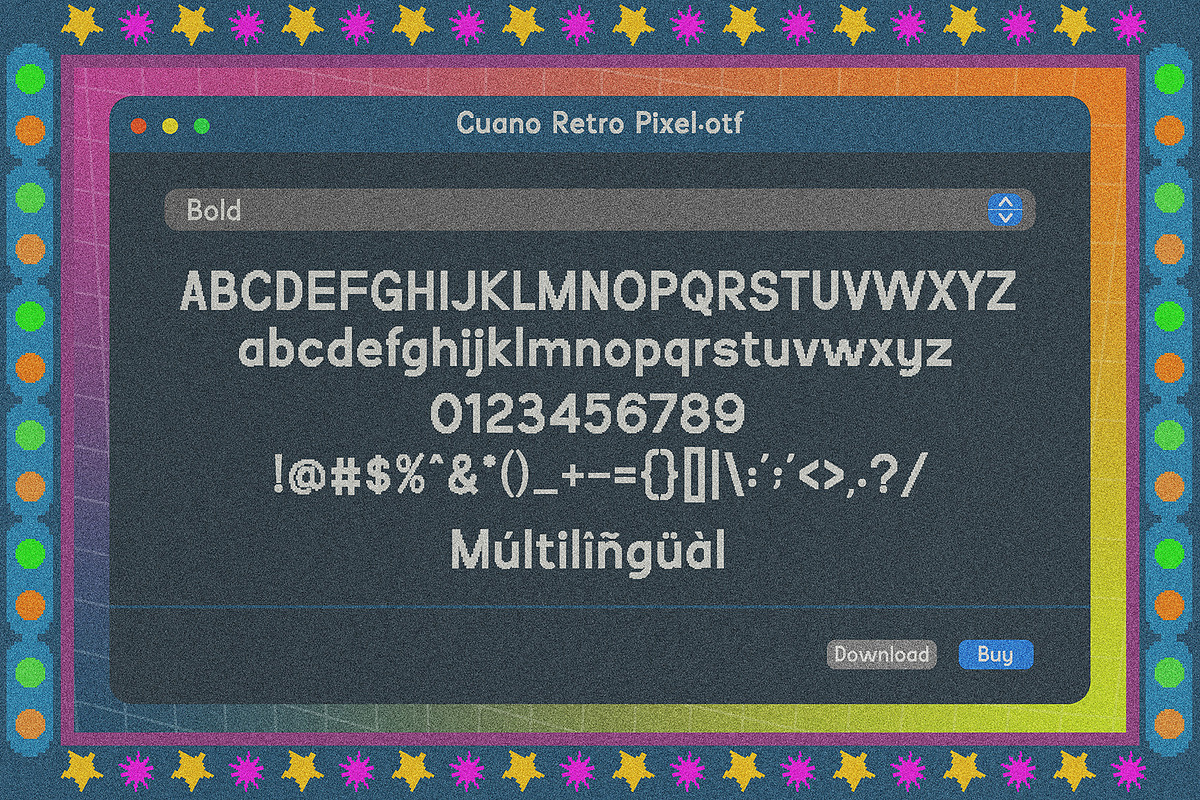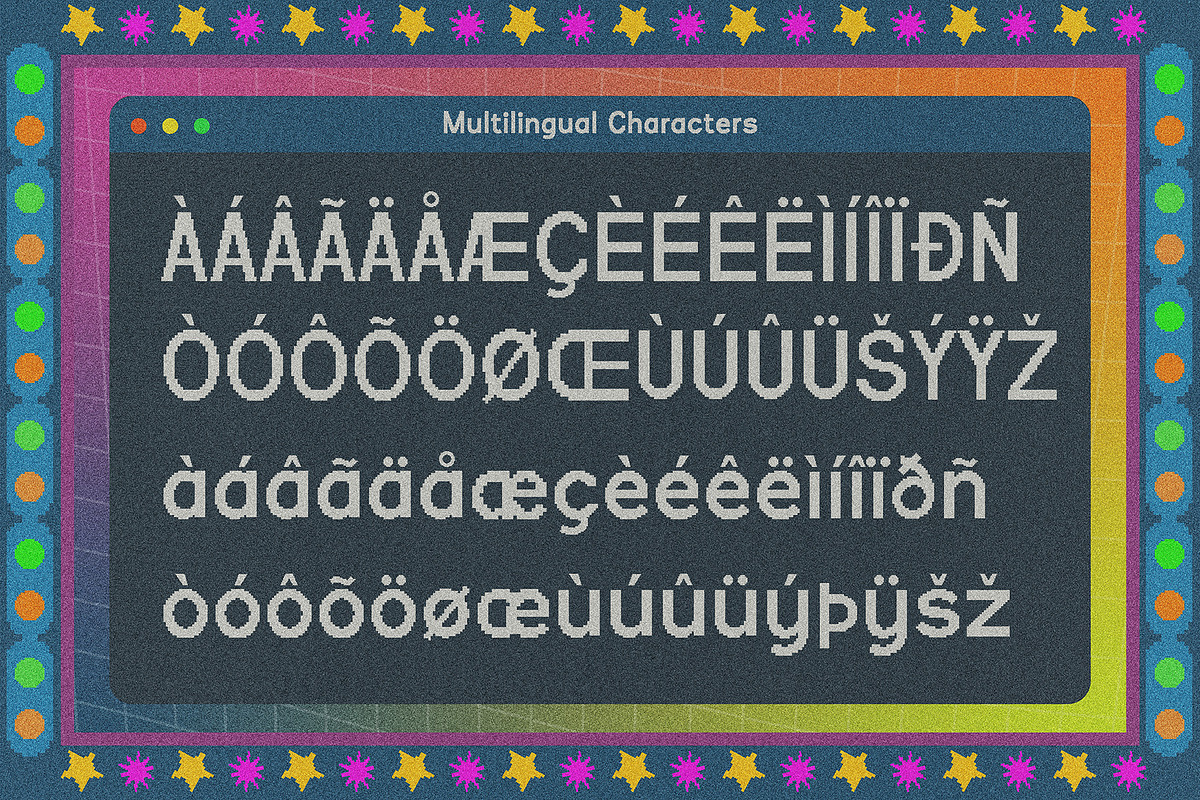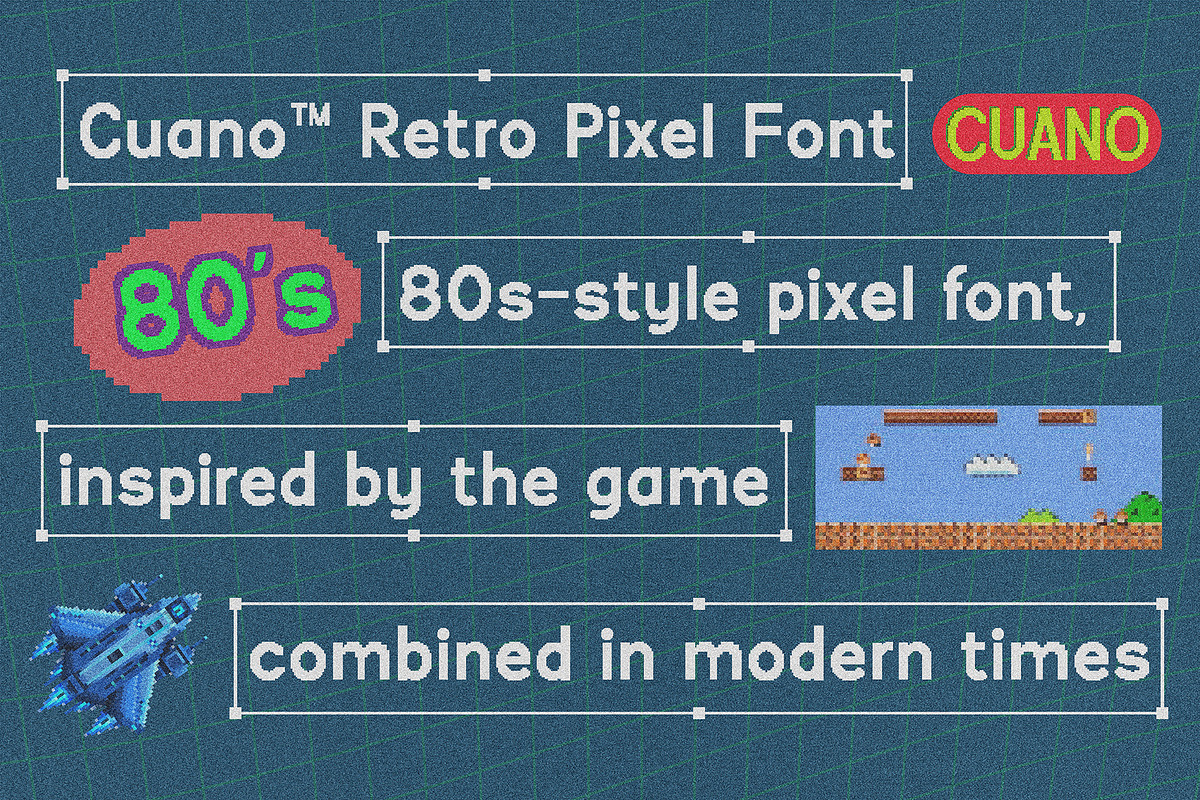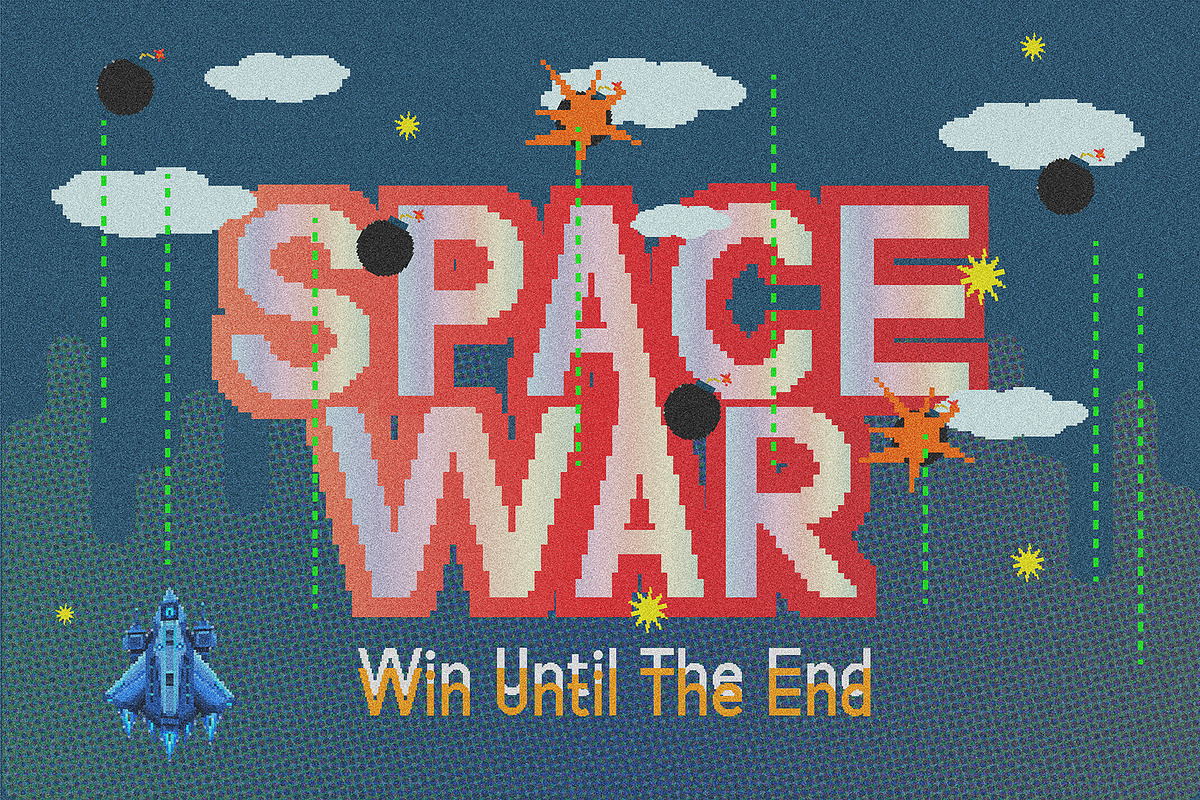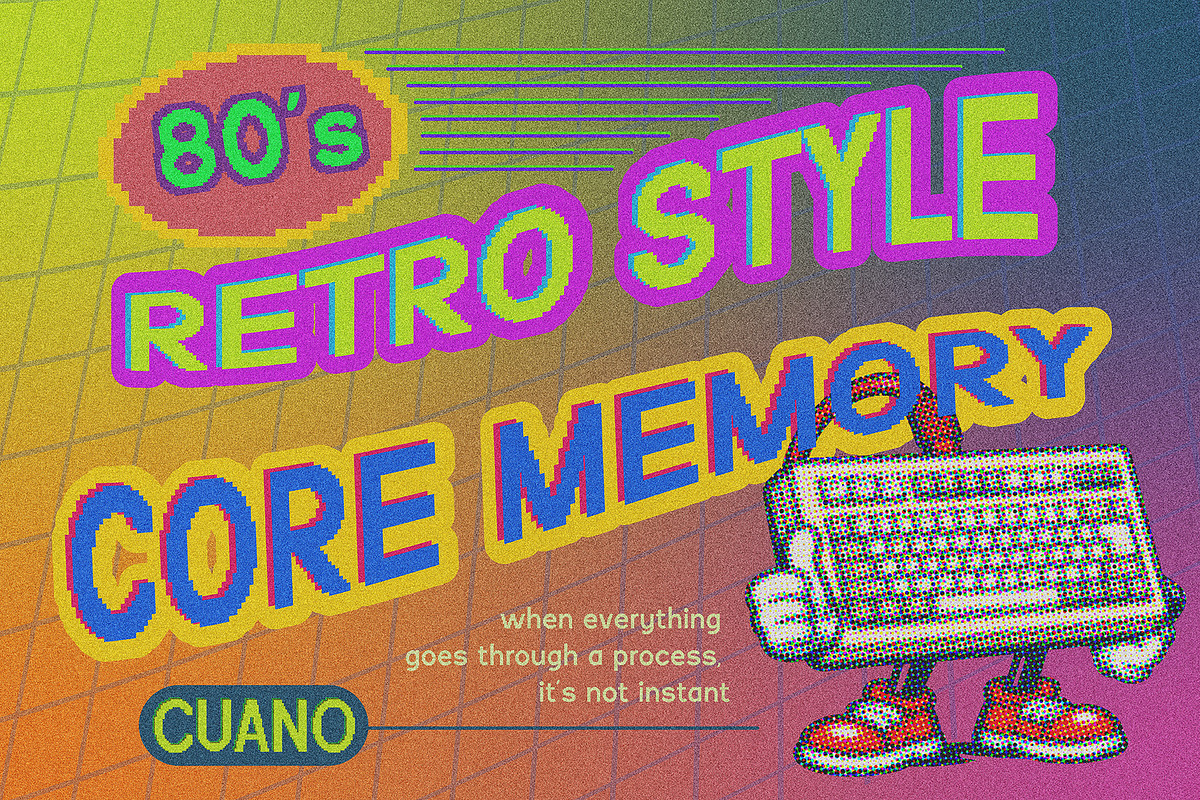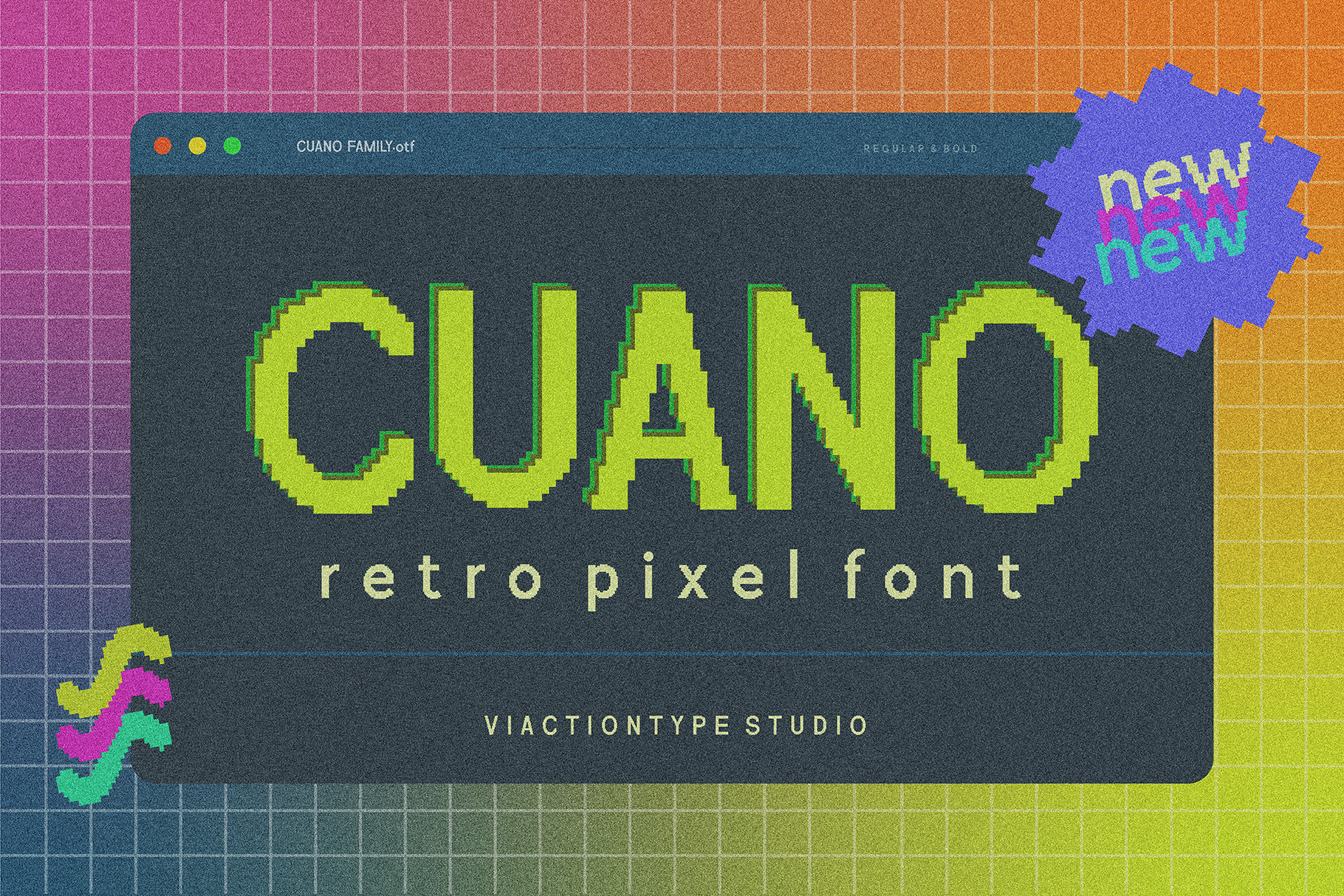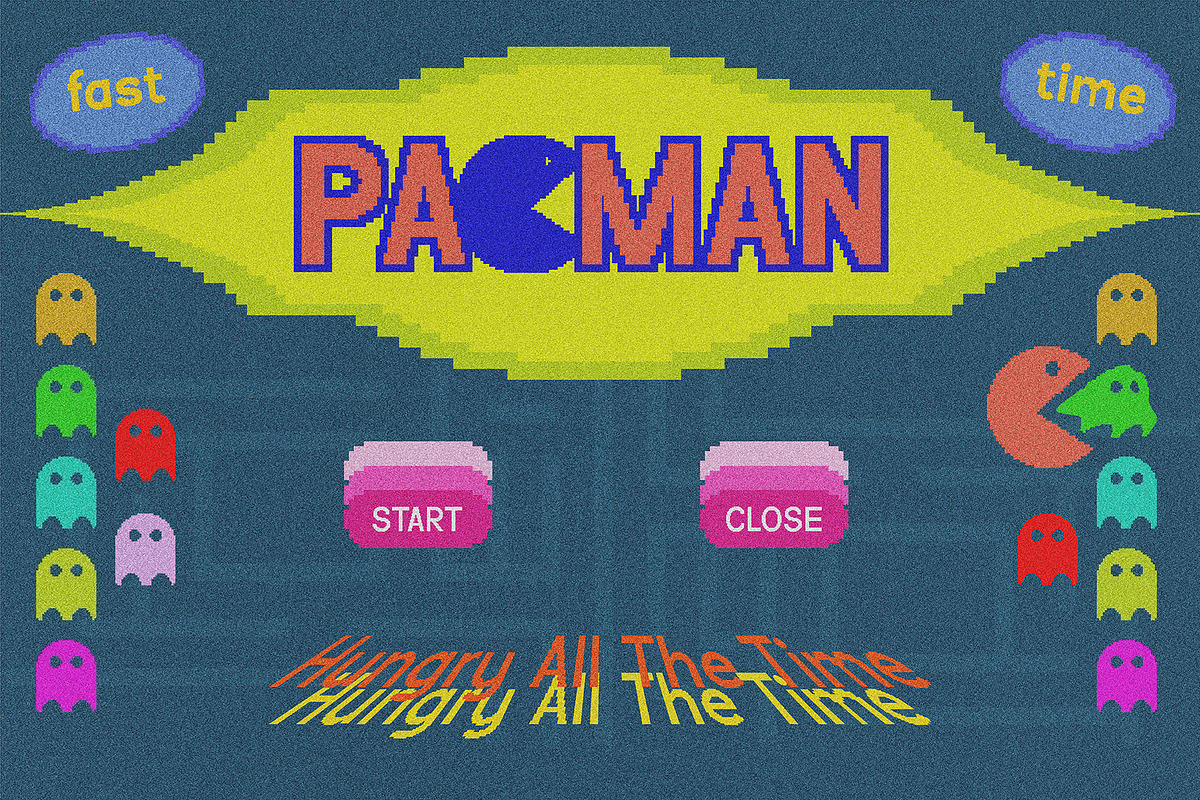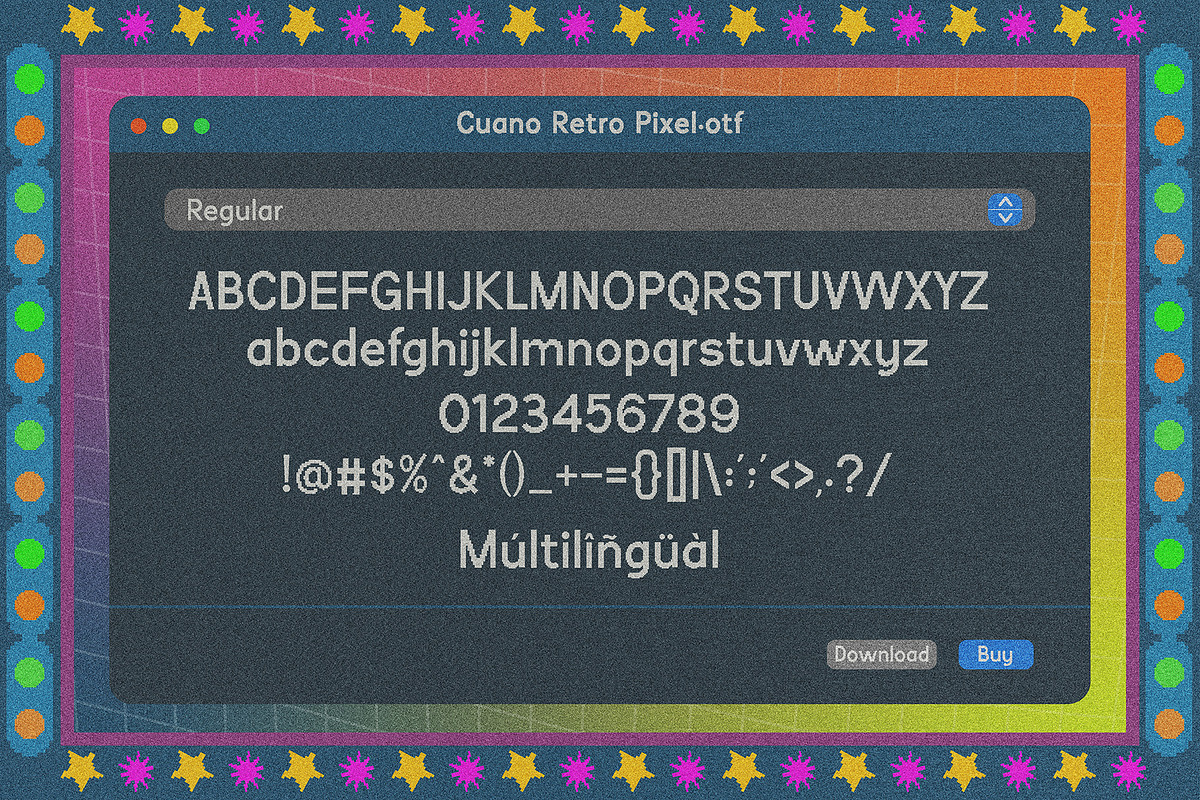
VT Cuano – Retro Pixel Font
Bring back the golden age of classic gaming with Cuano, a bold retro pixel sans serif font inspired by the iconic 8-bit visuals of old-school arcade and video games.
Inspired by the pixel aesthetics of retro console games, Cuano features clean, blocky letterforms with a playful nostalgic character.
Available in 2 styles: Regular & Bold, Cuano gives you the flexibility to create everything from subtle retro typography to bold, attention-grabbing gaming graphics.
Gaming logos, arcade posters, game titles, YouTube thumbnails, Twitch graphics, pixel art, retro branding, posters, stickers, badges, social media designs, and nostalgic creative projects.
Turn your next design into a pixel-powered throwback with Cuano!